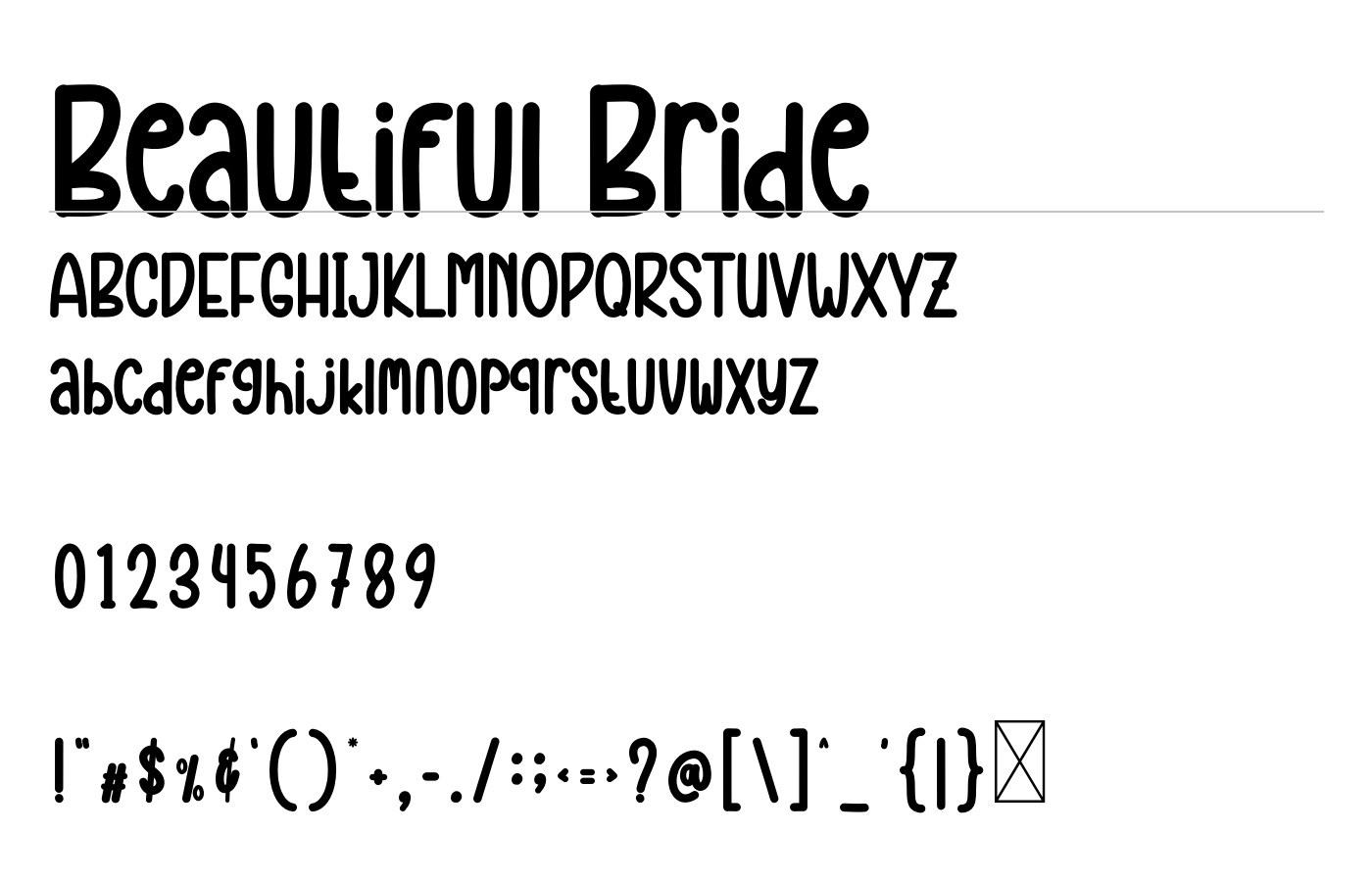
Beautiful Bride is a playful sans serif font with a tall, narrow structure and a hand-drawn feel. Its rounded, slightly irregular letterforms give it a friendly, informal personality, making it perfect for casual and creative projects like invitations, children’s books, and whimsical branding. This font stands out with its unique, quirky style that adds charm and approachability wherever it’s used.
Beautiful Bride Font